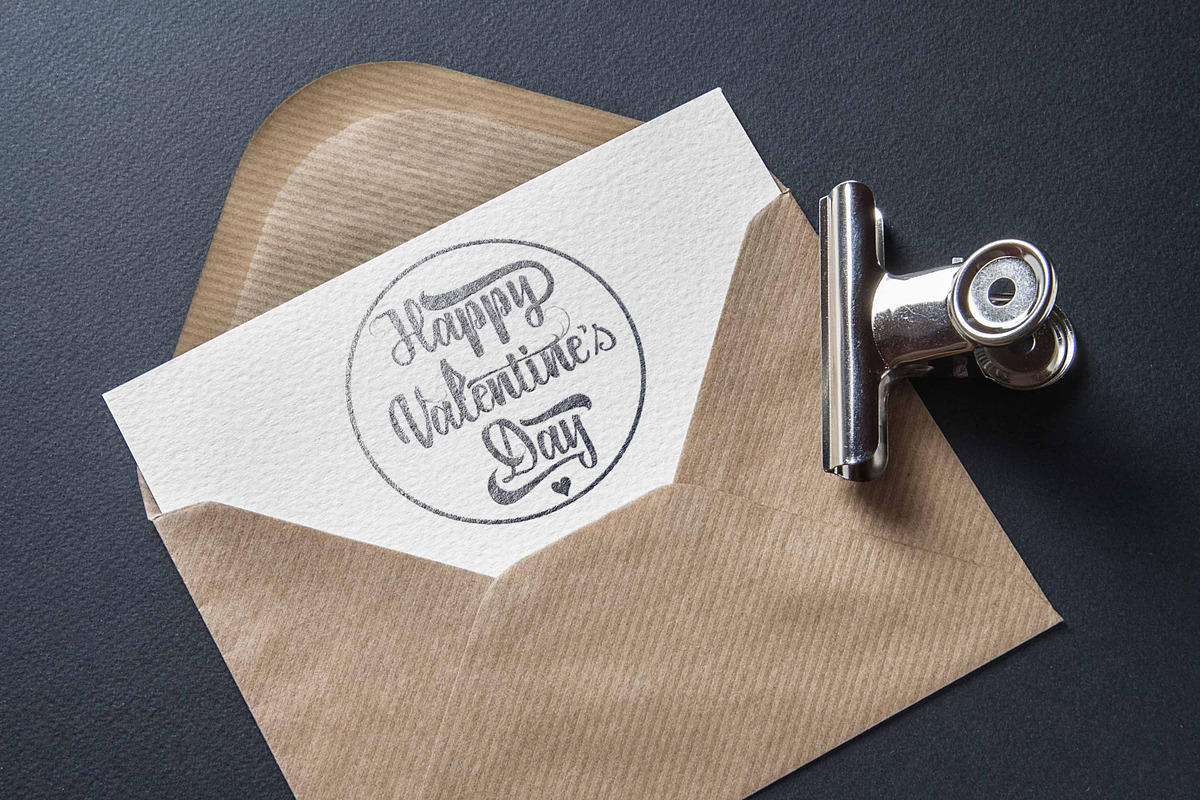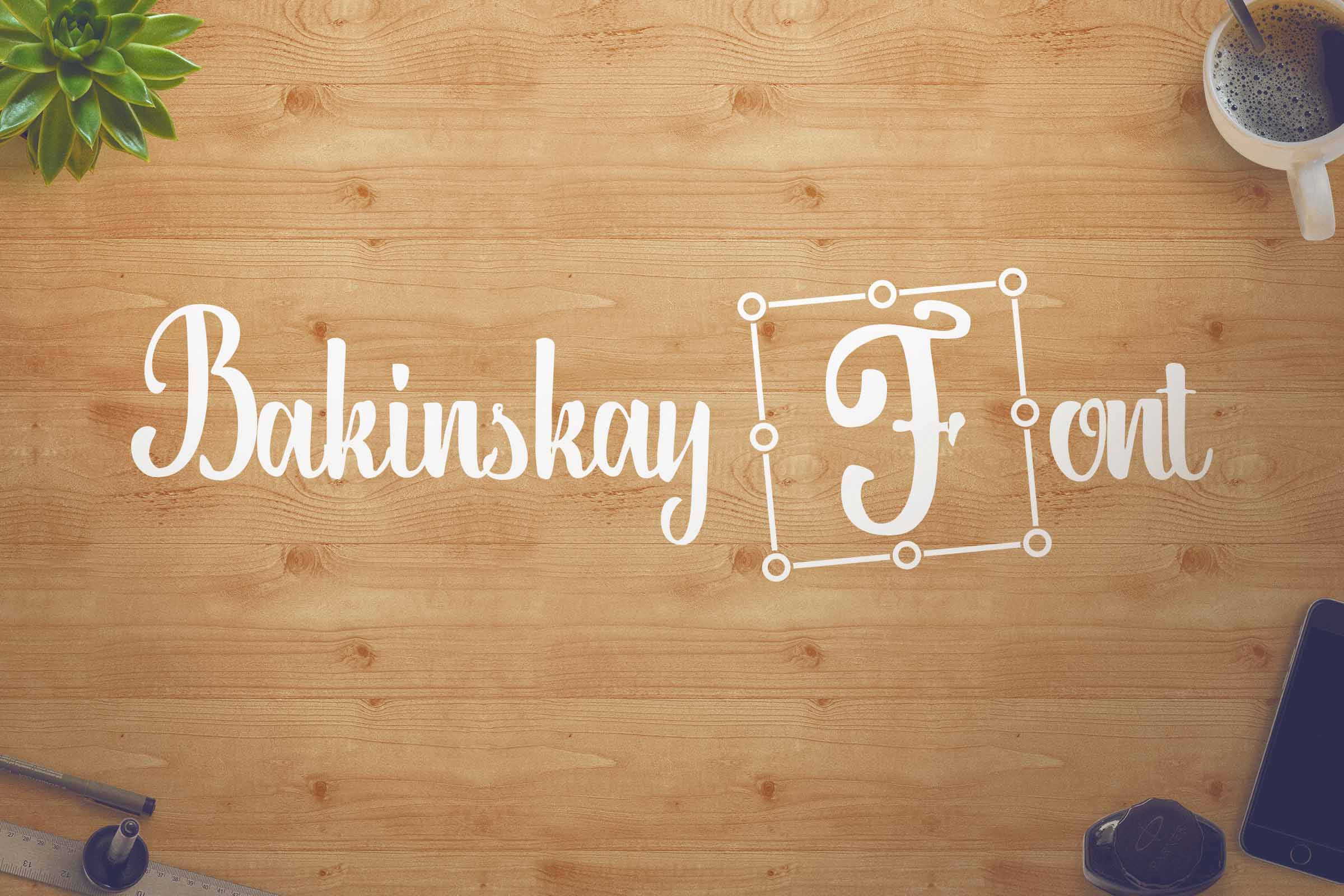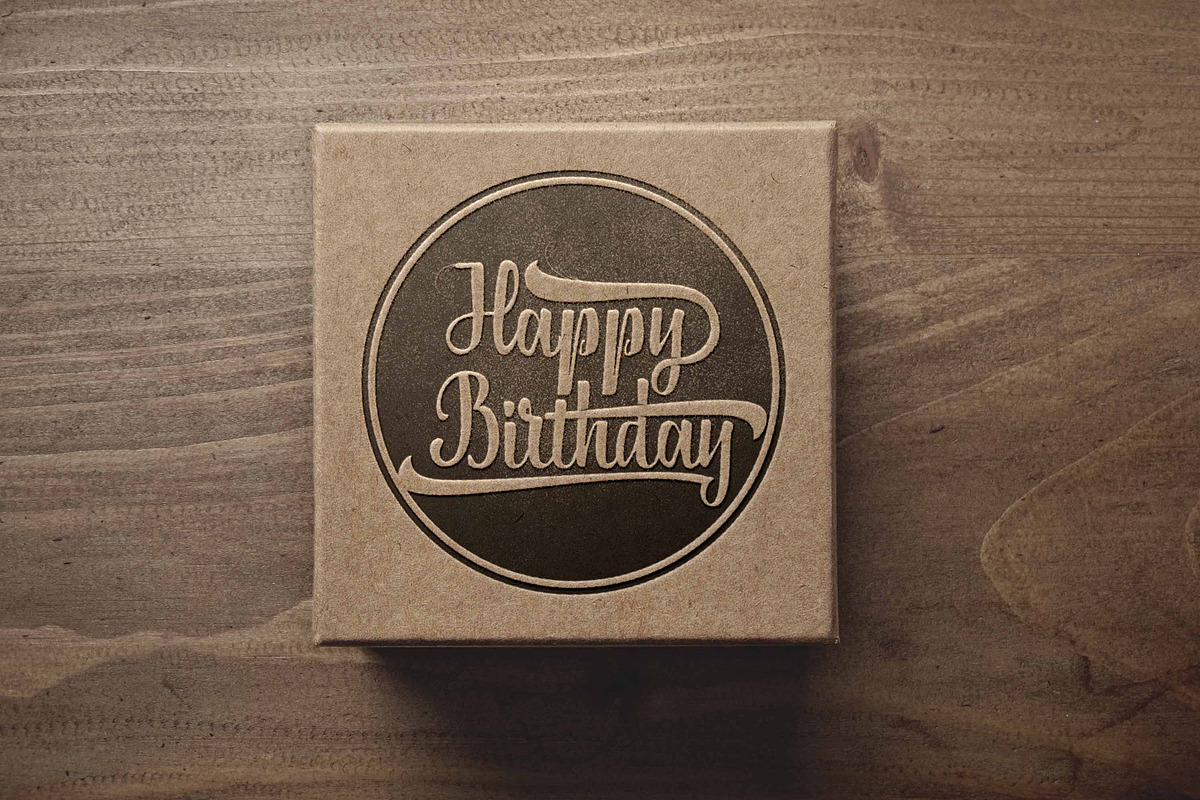
Bakinskay Handmade Font Brush
Introducing Bakinskay 5 in 1 script.
- Bakinskay - comes is various styles - Regular, Slanted , and Upright - each with it's own unique personality to suit the look you are after.
This font are perfect for wedding postcard. Or you can create perfect and unique design of your logo, blog, stationery, marketing, magazines and more